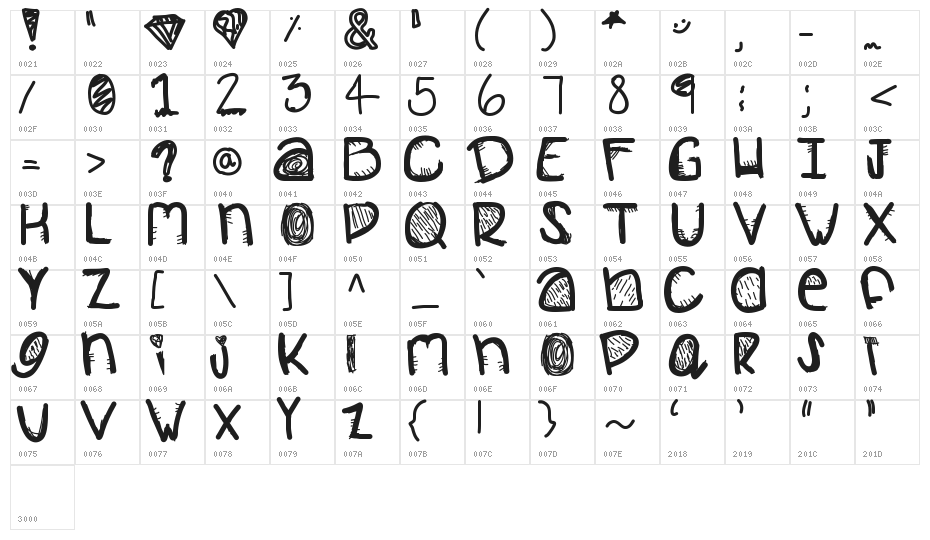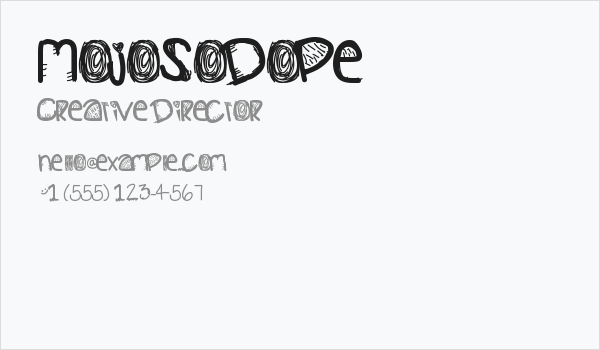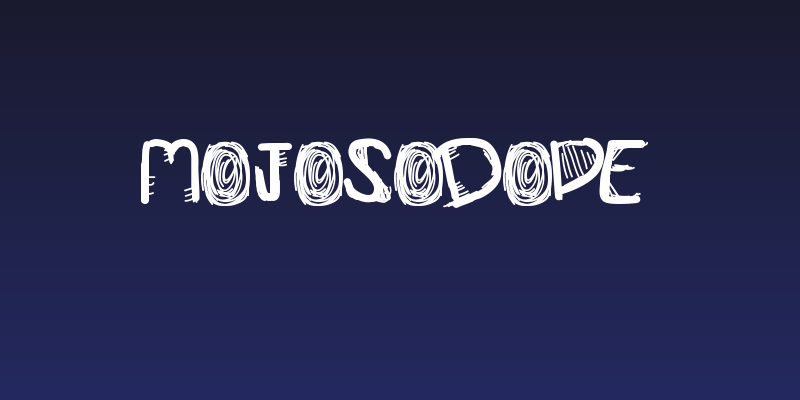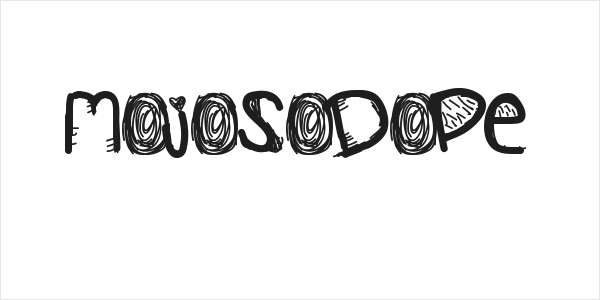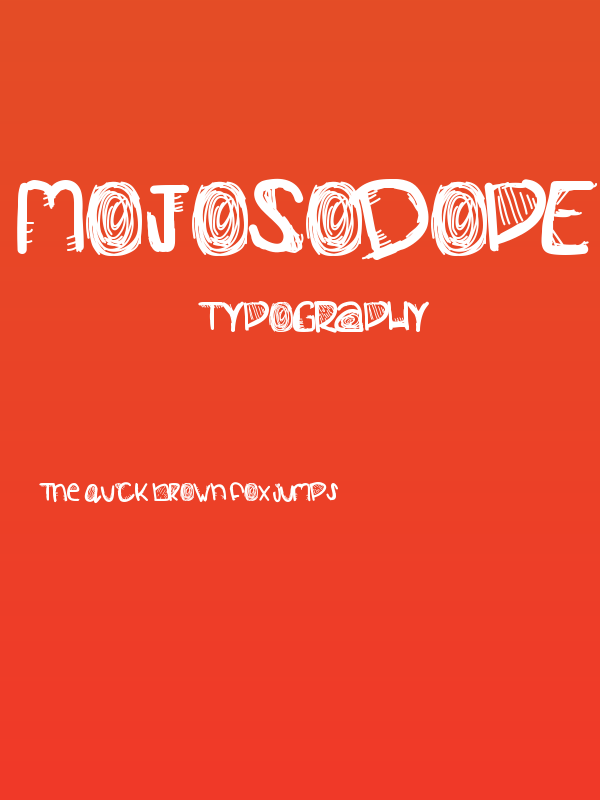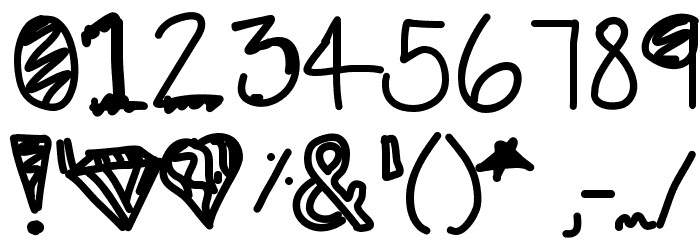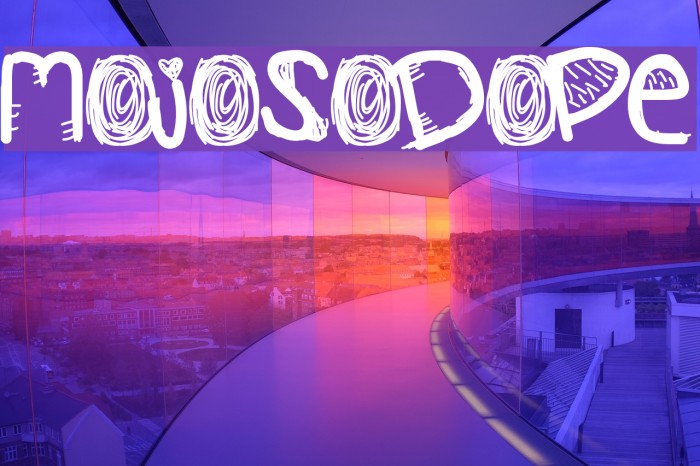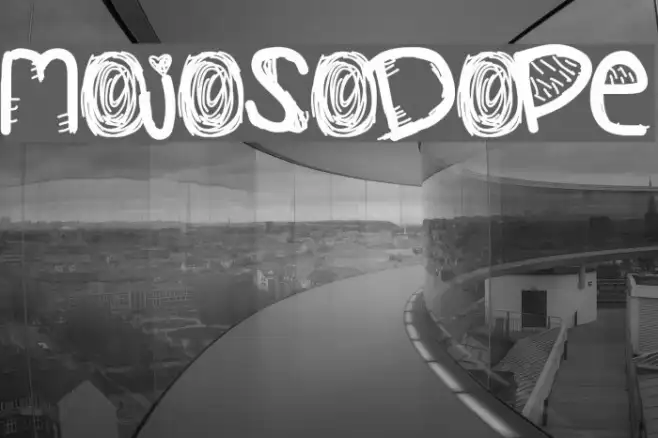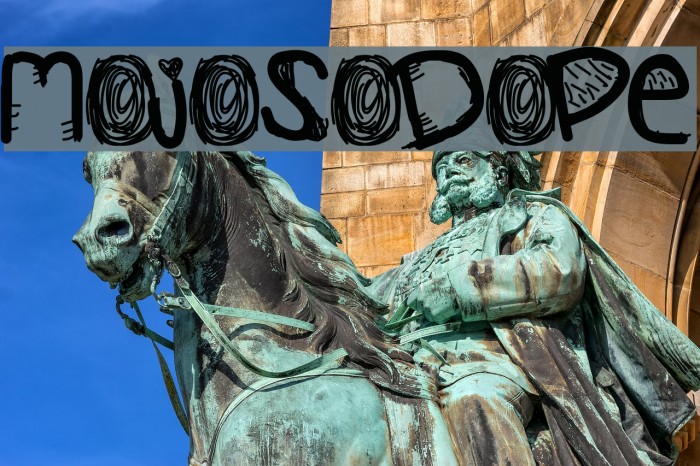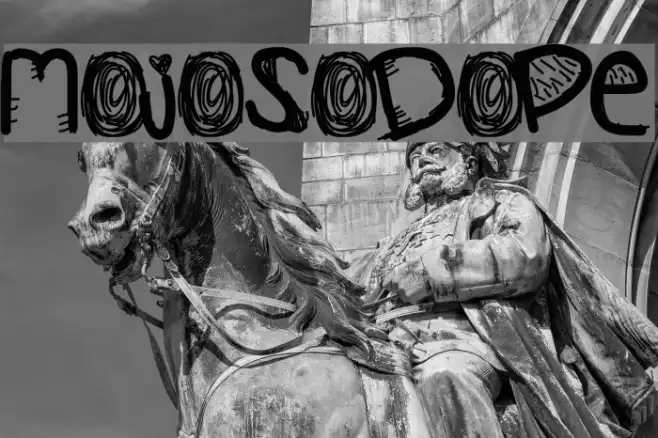
MojoSoDope Font
MojoSoDope Description
This font features a playful and artistic style with a hand-drawn appearance. The letters are bold and irregular, with a mix of thick and thin strokes that give it a dynamic and energetic feel. The uppercase and lowercase letters maintain a consistent whimsical theme, with some characters incorporating unique embellishments like swirls and dots. The numbers and special characters follow the same creative pattern, making the font ideal for projects that require a fun and informal touch. Overall, it exudes a sense of creativity and spontaneity, perfect for capturing attention.
| Overall Style | Artistic and playful |
| Proposed Projects | Ideal for children's books, creative posters, playful branding, and artistic invitations. |